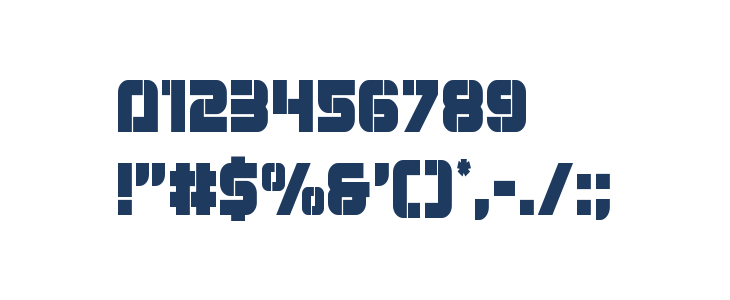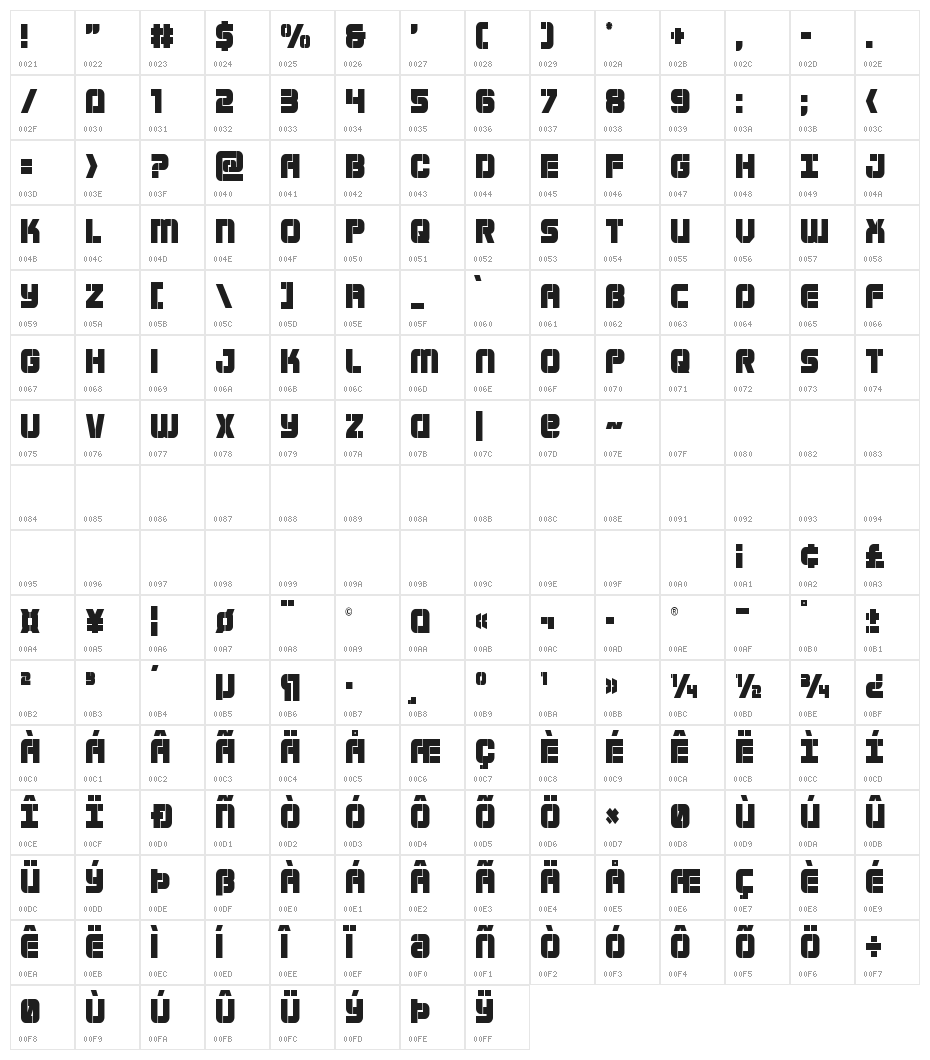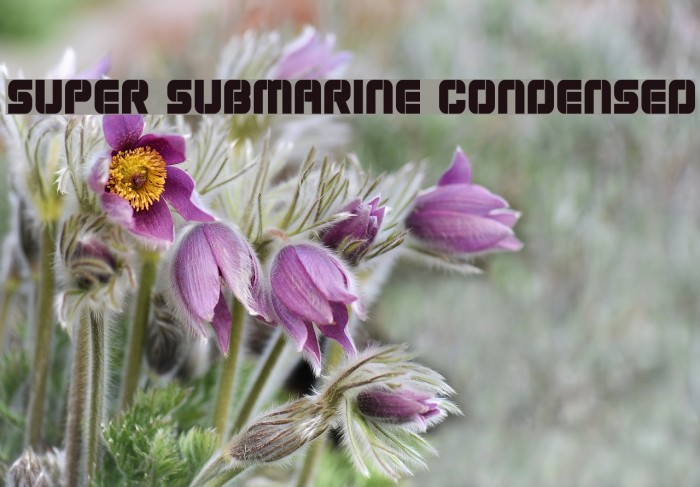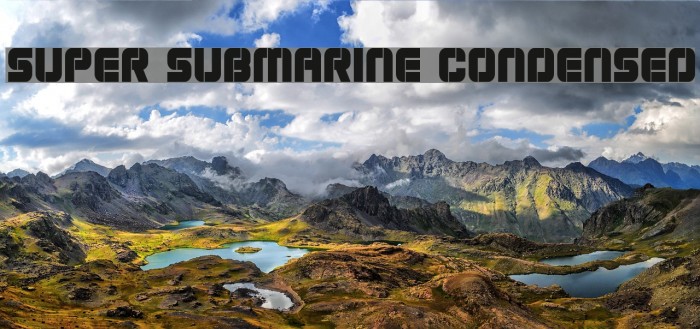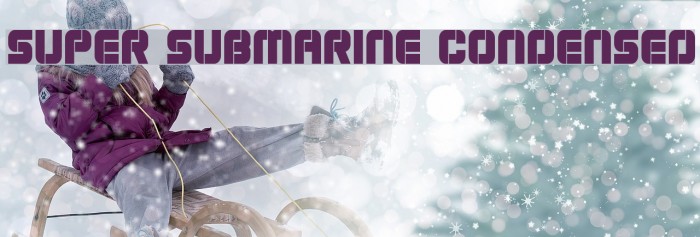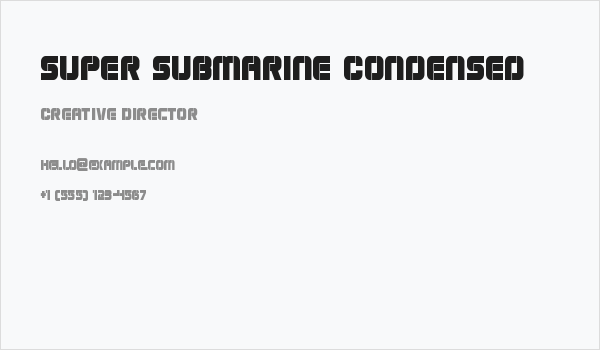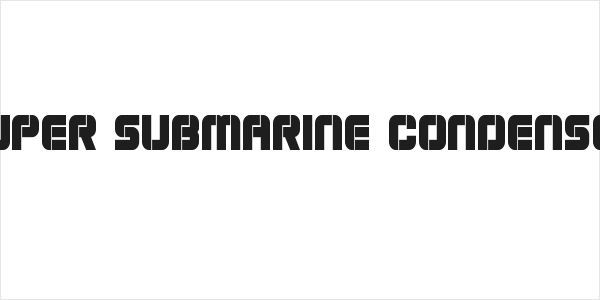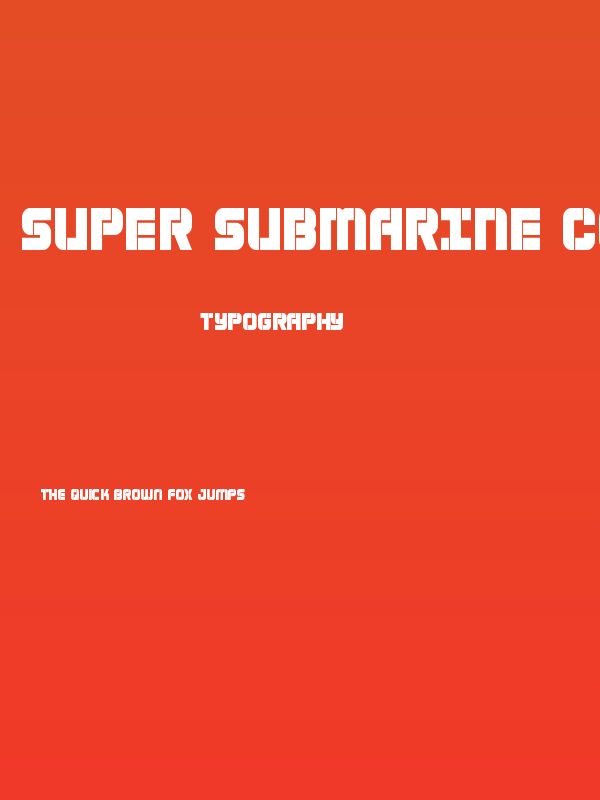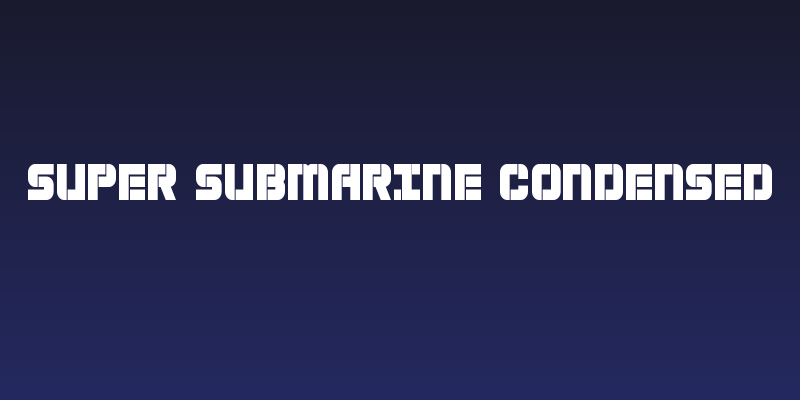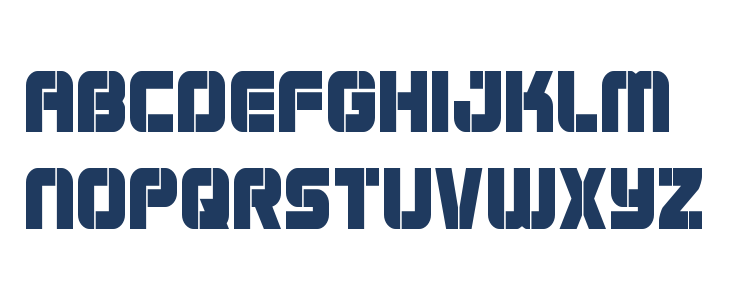
Super Submarine Condensed Font
Super Submarine Condensed Description
This font features a bold, geometric style with a condensed width, creating a strong and impactful visual presence. The characters are constructed with thick, uniform strokes, giving them a robust and modern appearance. The design incorporates sharp angles and straight lines, contributing to a futuristic and industrial aesthetic. The uppercase and lowercase letters maintain a consistent height, enhancing the uniformity and cohesiveness of the typeface. The numerals and special characters follow the same design principles, ensuring a harmonious look across all elements. This font is ideal for projects that require a bold statement and a contemporary feel.